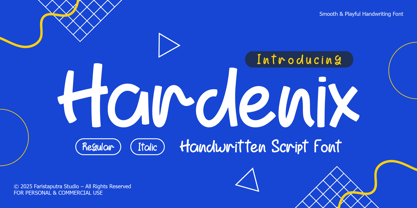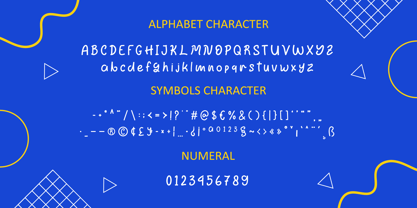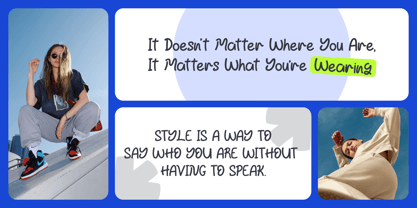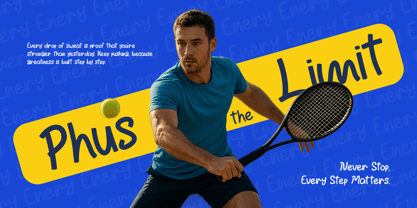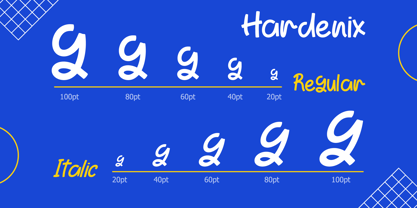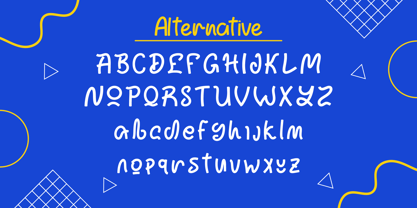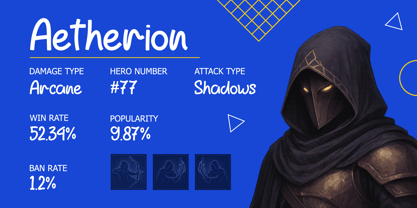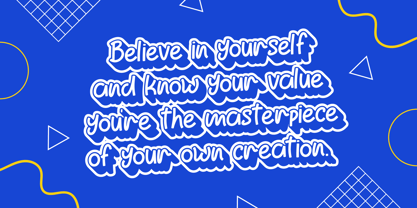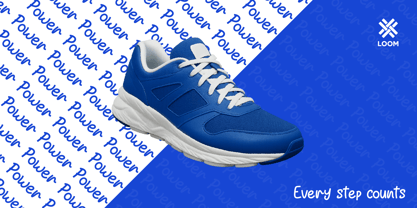
FA Hardenix
by Faristaputra
The FA Hardenix Font Family was designed by Frederik Aristaputra and published by Faristaputra. FA Hardenix contains 2 styles and family package options. More about this family
Hardenix is a modern handwritten script font with a smooth and playful look that captures the feel of natural handwriting. Its casual yet clean design makes it versatile for a wide range of creative projects.
Available in two styles (Regular & Italic), Hardenix gives you flexibility to create dynamic and expressive typography. Perfect for branding, logos, posters, packaging, social media content, quotes, and children’s designs, this font adds a cheerful and approachable touch to any layout.
Designers: Frederik Aristaputra
Foundry: Faristaputra